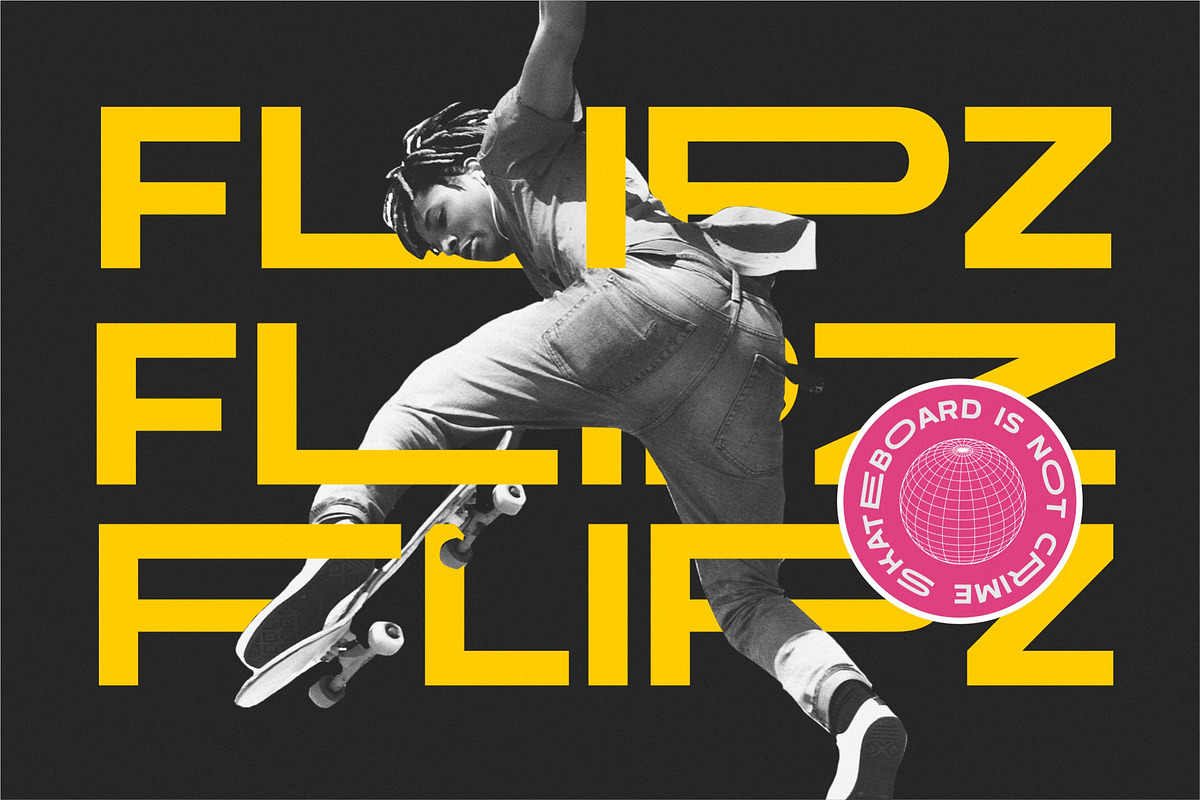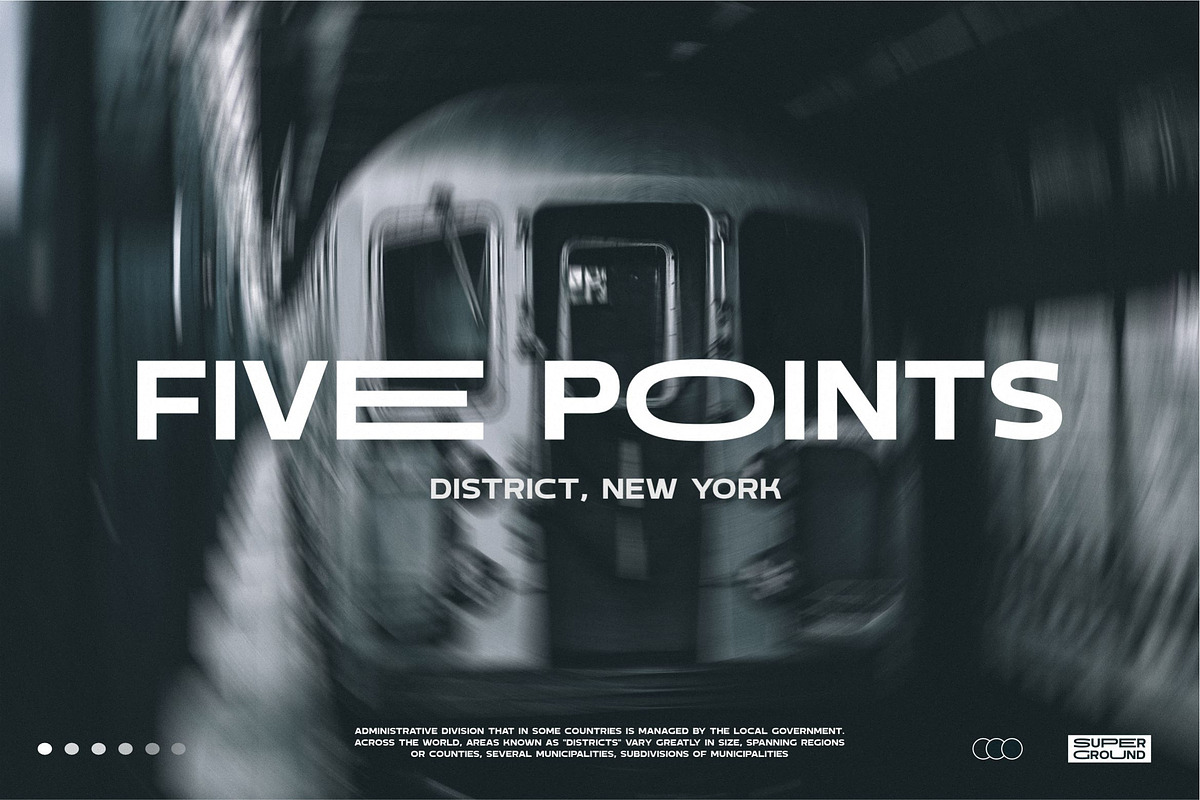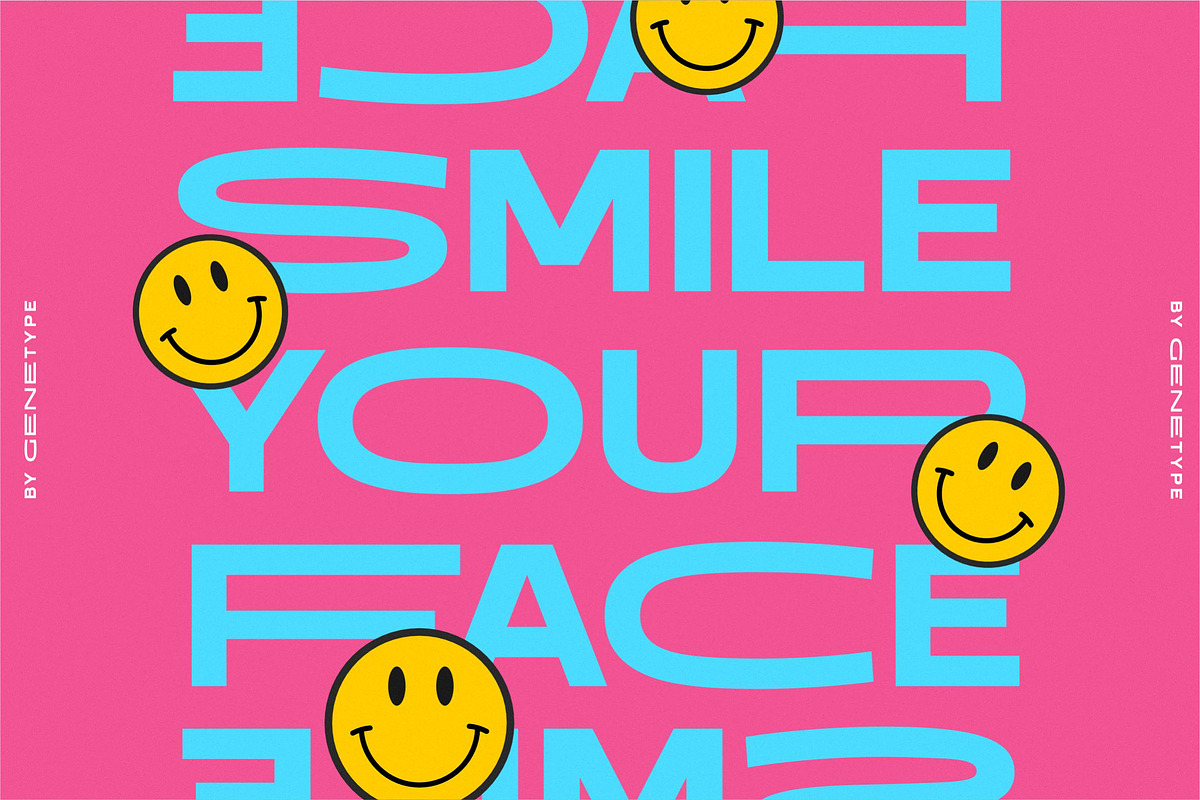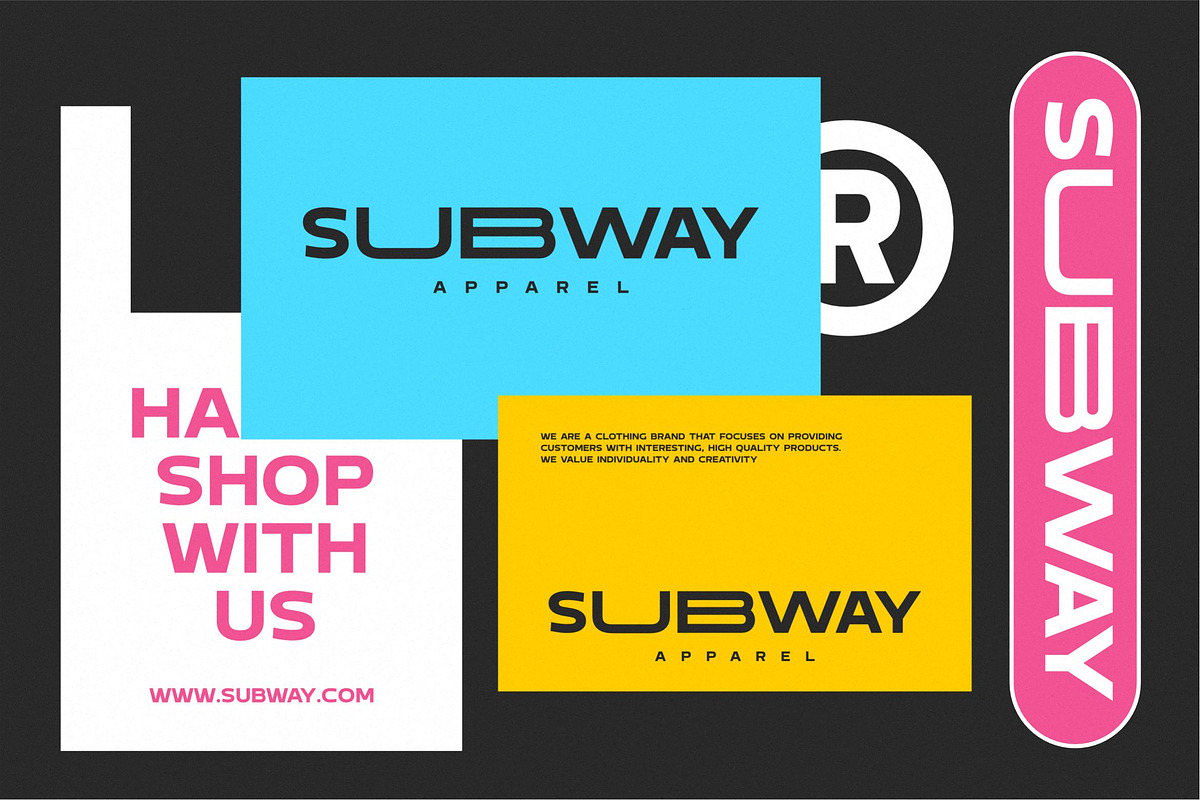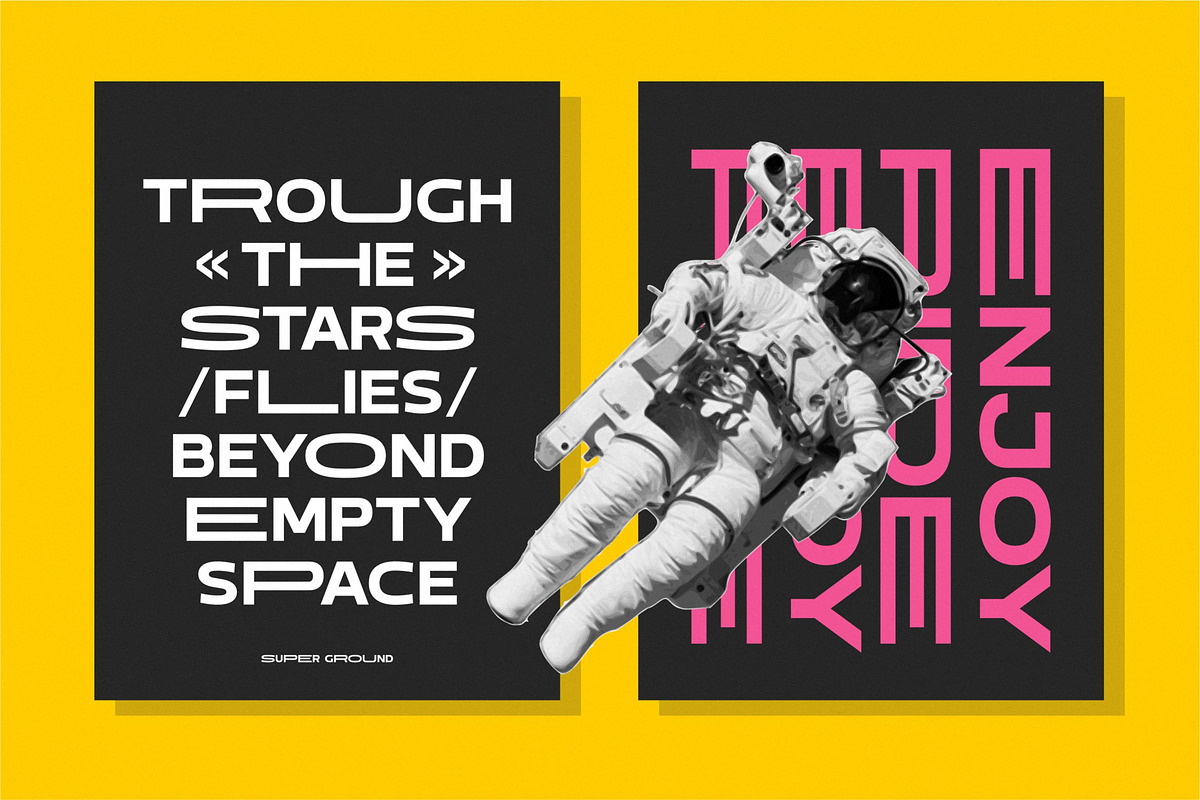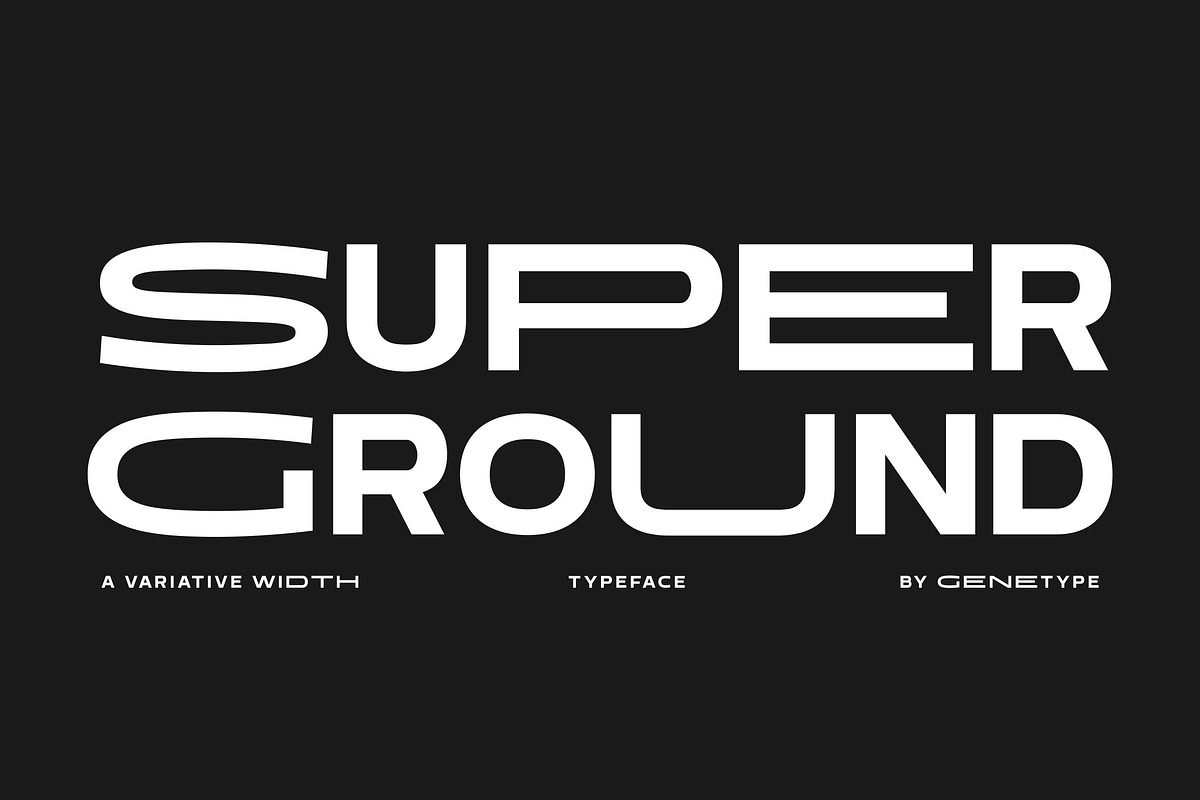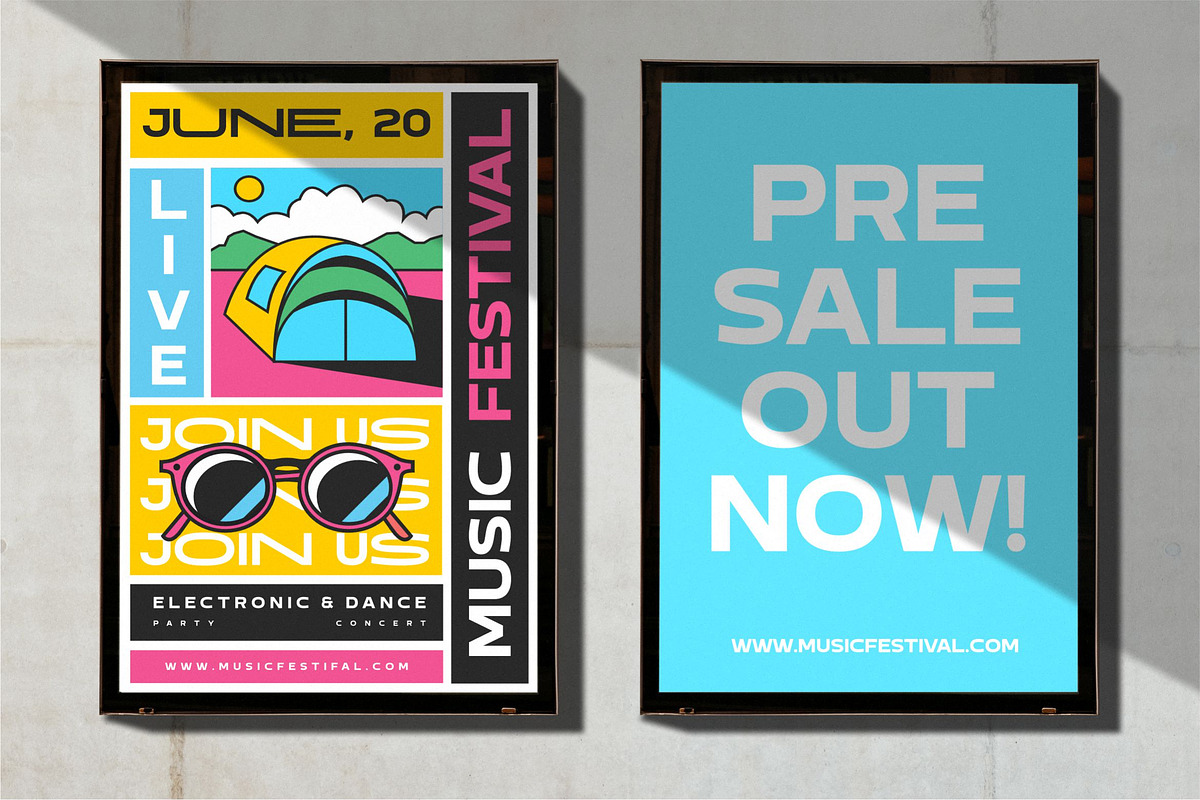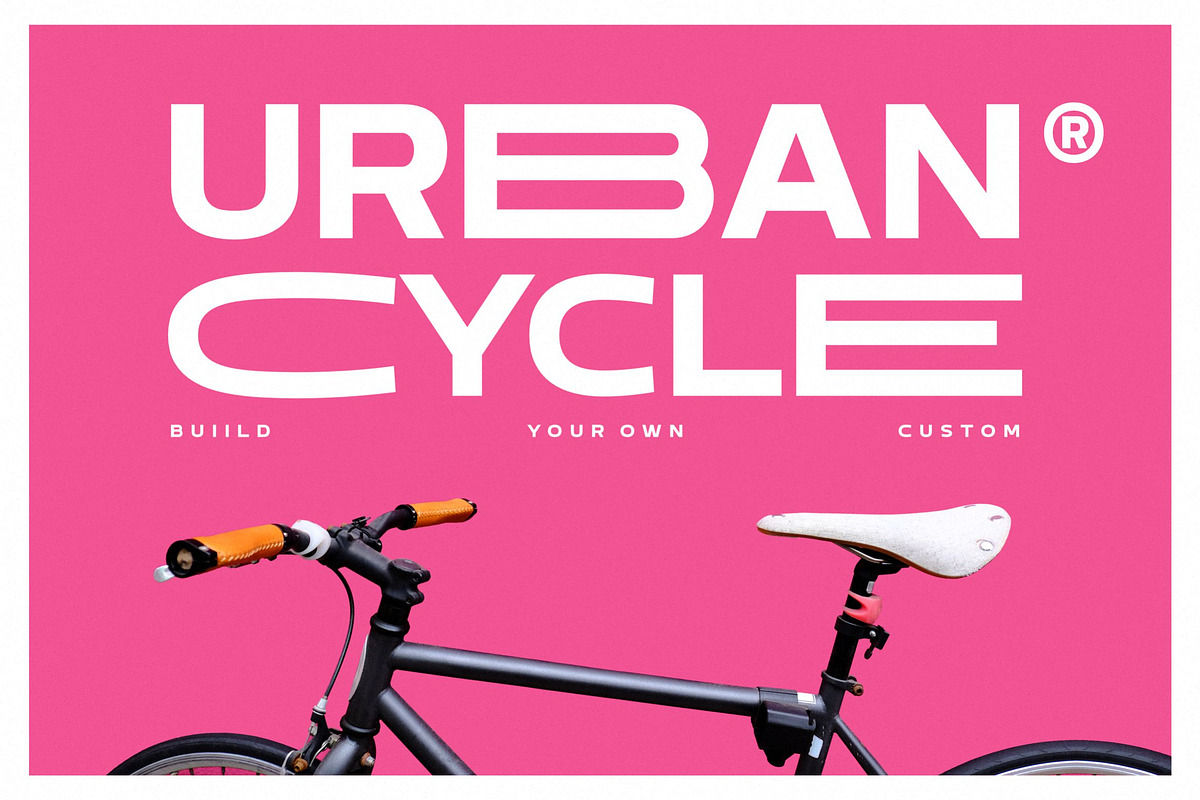
Super Ground
Introducing Super Ground Typeface: Expand Your Design Horizons Step into a world of limitless creativity with Super Ground – a wide sans serif font designed to amplify your design impact. Its spacious letterforms provide a canvas for bold ideas, from captivating headlines to eye-catching logos. Embrace the power of width and redefine your designs – discover Super Ground and let your creativity flow freely.